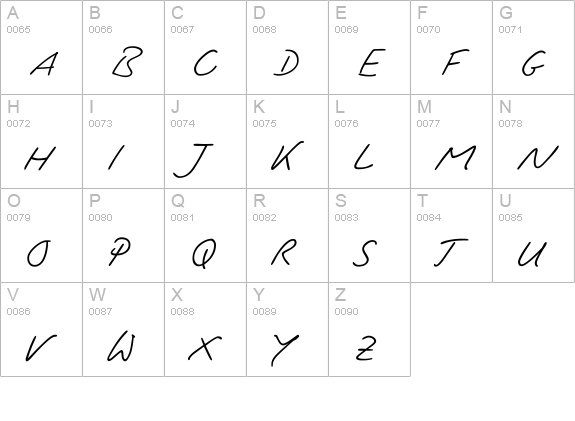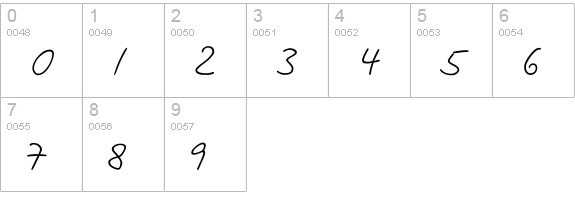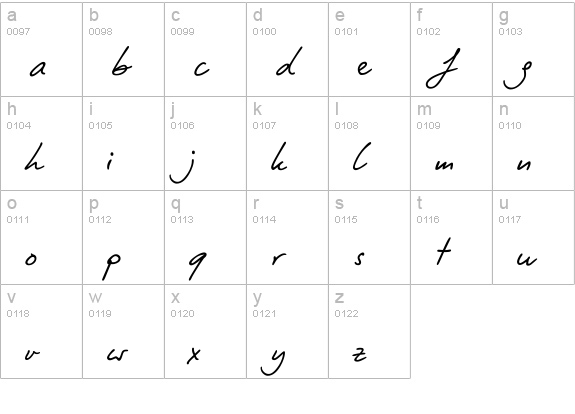
PT Script Zephyr Font Details
PT Script Zephyr font is a stunning and elegant typeface that exudes sophistication and charm. With its delicate and flowing script style, this font is perfect for adding a touch of grace to any design project. The graceful curves and intricate details of PT Script Zephyr make it a timeless choice for invitations, branding, and other creative endeavors. What makes PT Script Zephyr even more appealing is that it is available for free download at FontsMarket.com. This means that you can easily access this beautiful font and incorporate it into your designs without any cost. Whether you are a graphic designer, a business owner, or a creative hobbyist, PT Script Zephyr is a versatile and stylish font that will elevate your projects to the next level. Download it today and add a touch of elegance to your work!